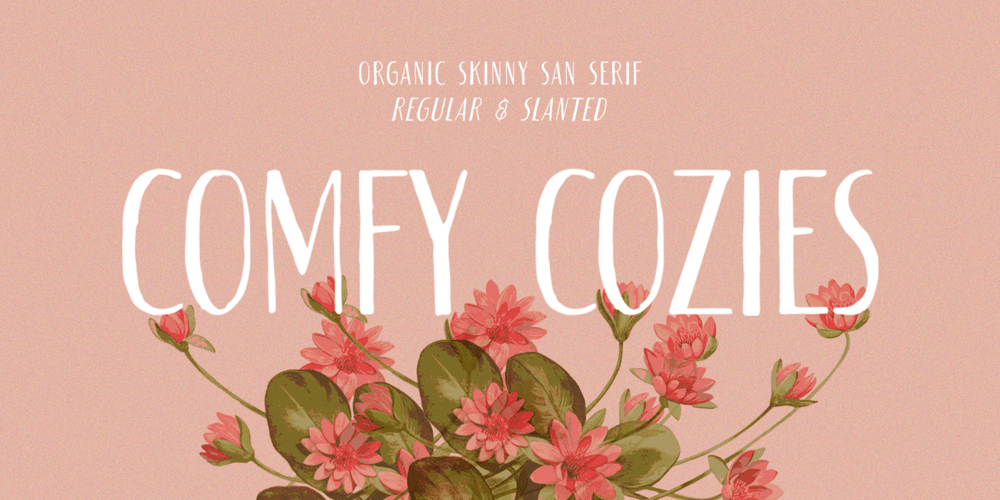
Comfy Cozies Font Family was designed by Hendry Juanda and published by Letterhend. Comfy Cozies contains 2 styles and family package options. Looking for a font that feels both cozy and stylish? Look no further than Comfy Cozies. This organic sans serif font has a skinny form that gives it a light and airy feel, while the regular and slanted styles offer versatility and creative potential. Whether you’re designing for a playful brand or a casual event, this font will add a touch of warmth and charm to your work.Features : Uppercase & lowercase Numbers and punctuation Alternates & Ligatures Multilingual PUA encoded We highly recommend using a program that supports OpenType features and Glyphs panels like many of Adobe apps and Corel Draw, so you can see and access all Glyph variations.